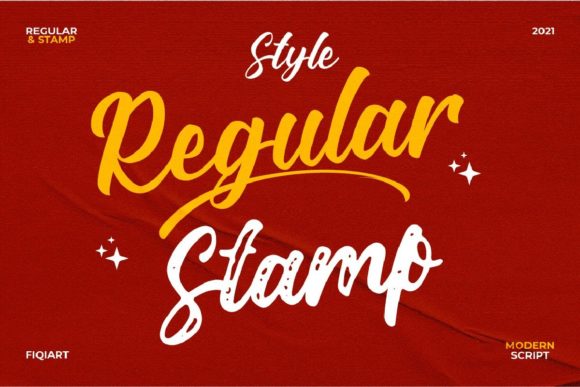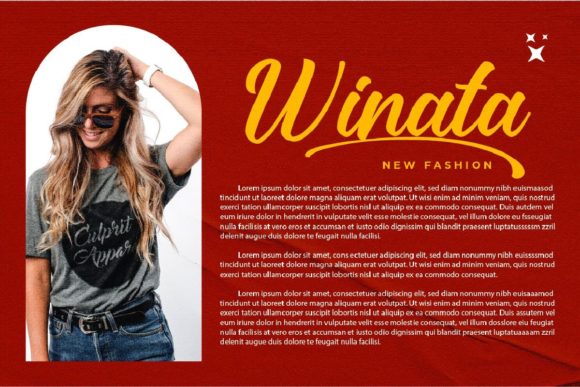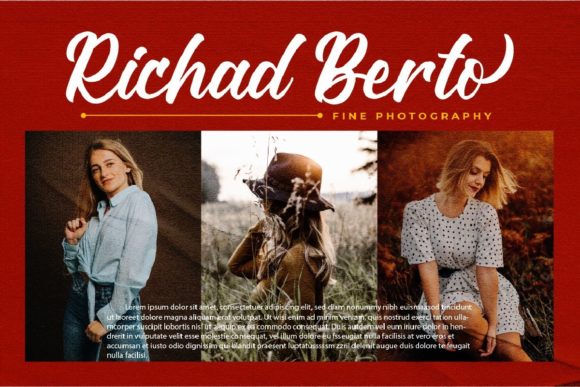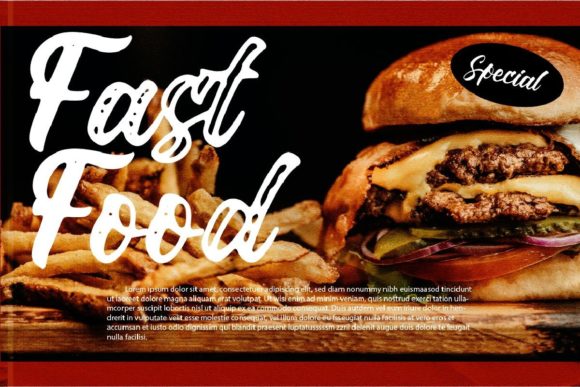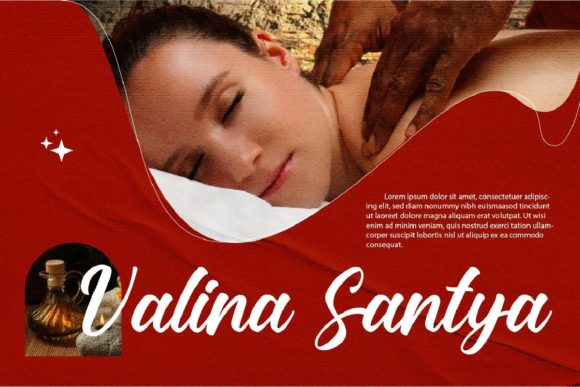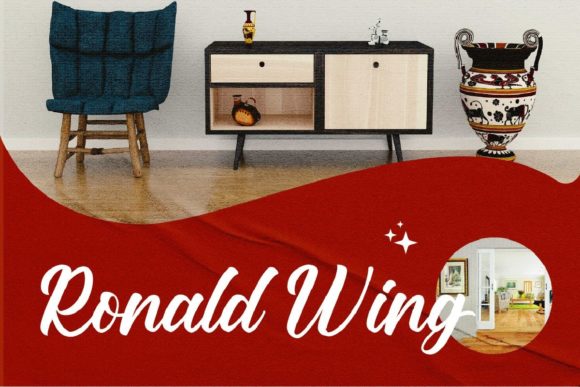
Princess Ryanti Font – Free Download
Introduction to Princess Ryanti Font
Princess Ryanti is a gorgeous and bold handwritten font, crafted to give your headlines and logotype projects a retro touch.
This font reads as strong, confident, and dynamic Princess Ryanti is PUA encoded which means you can access all of the glyphs and swashes with ease.